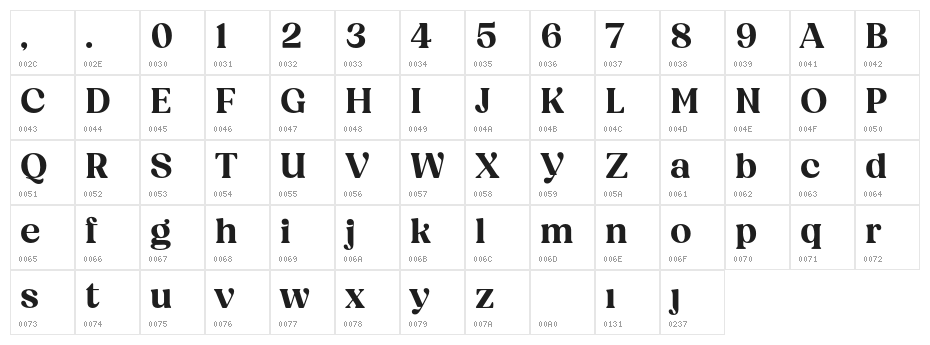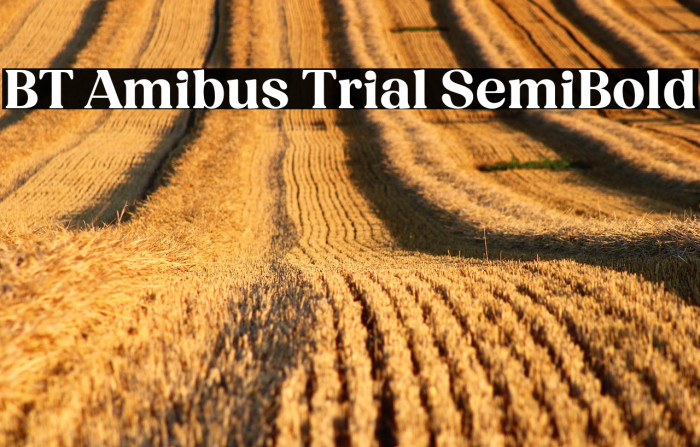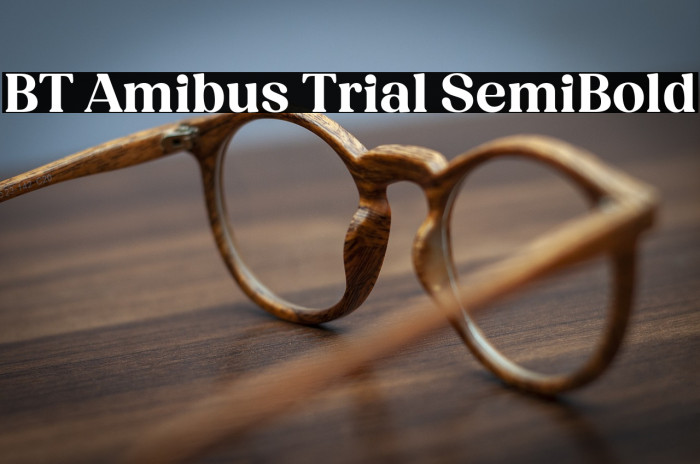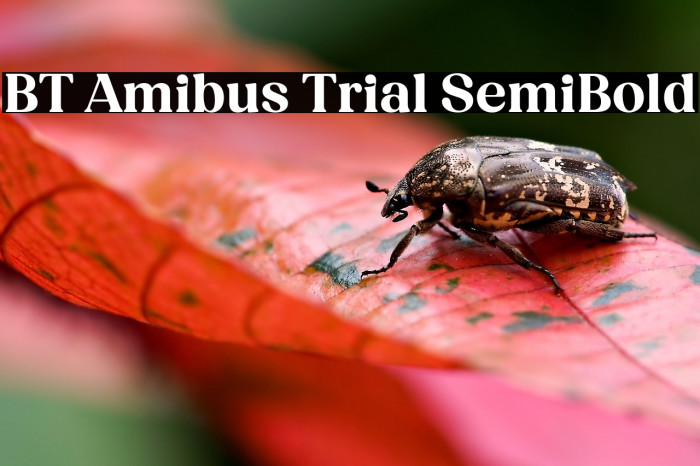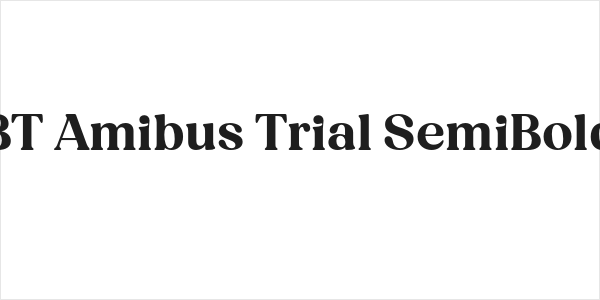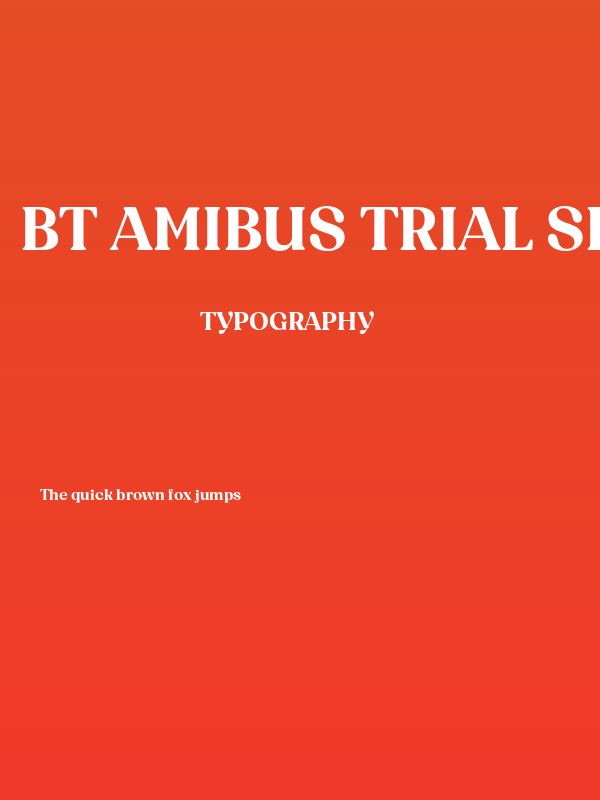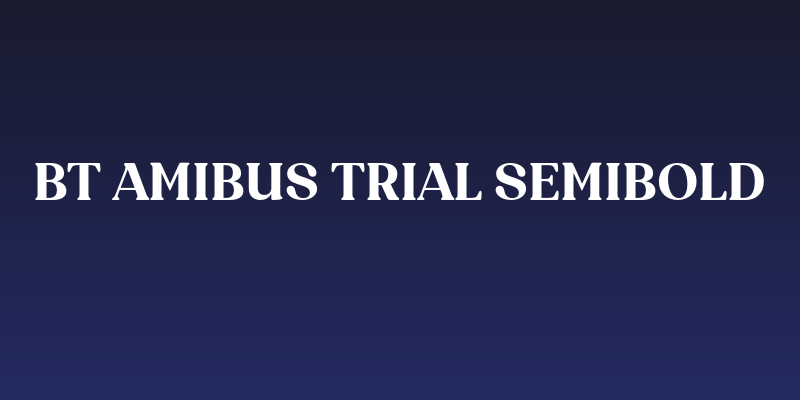
BT Amibus Trial SemiBold Font
BT Amibus Trial SemiBold Description
This font features a bold and commanding presence with its semi-bold weight, offering a strong and confident look. The serif design provides a classic and timeless feel, while the slightly condensed width ensures a compact and efficient use of space. The character spacing is normal, allowing for clear readability without feeling cramped. The high contrast in stroke thickness adds to its elegance and sophistication, making it suitable for formal and professional applications. The overall style is a blend of modern and classic elements, making it versatile for various design needs.
| Use Case | Headlines, Logos, Editorial Design |
| Proposed Projects | Ideal for use in headlines, branding, editorial design, and formal invitations. |